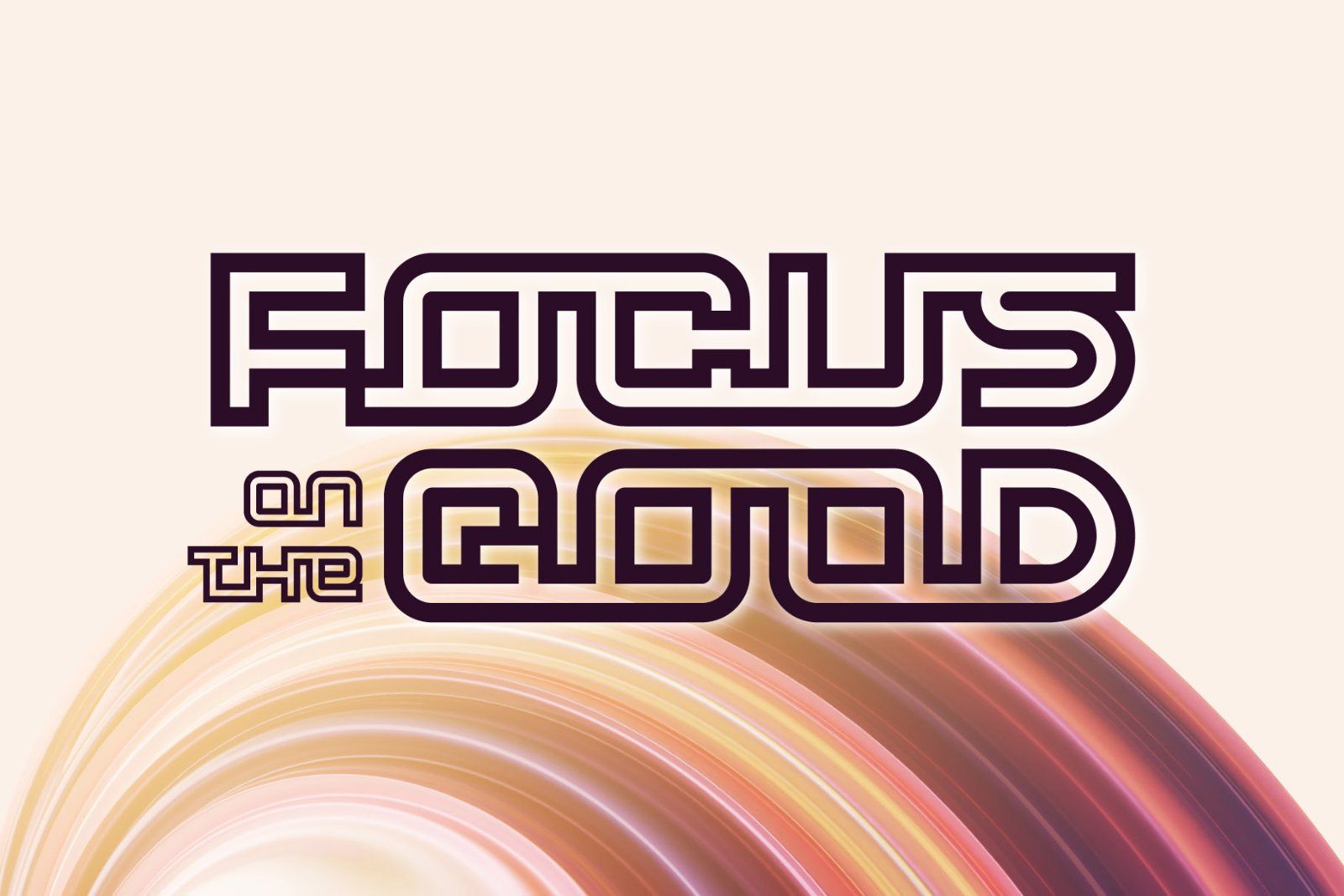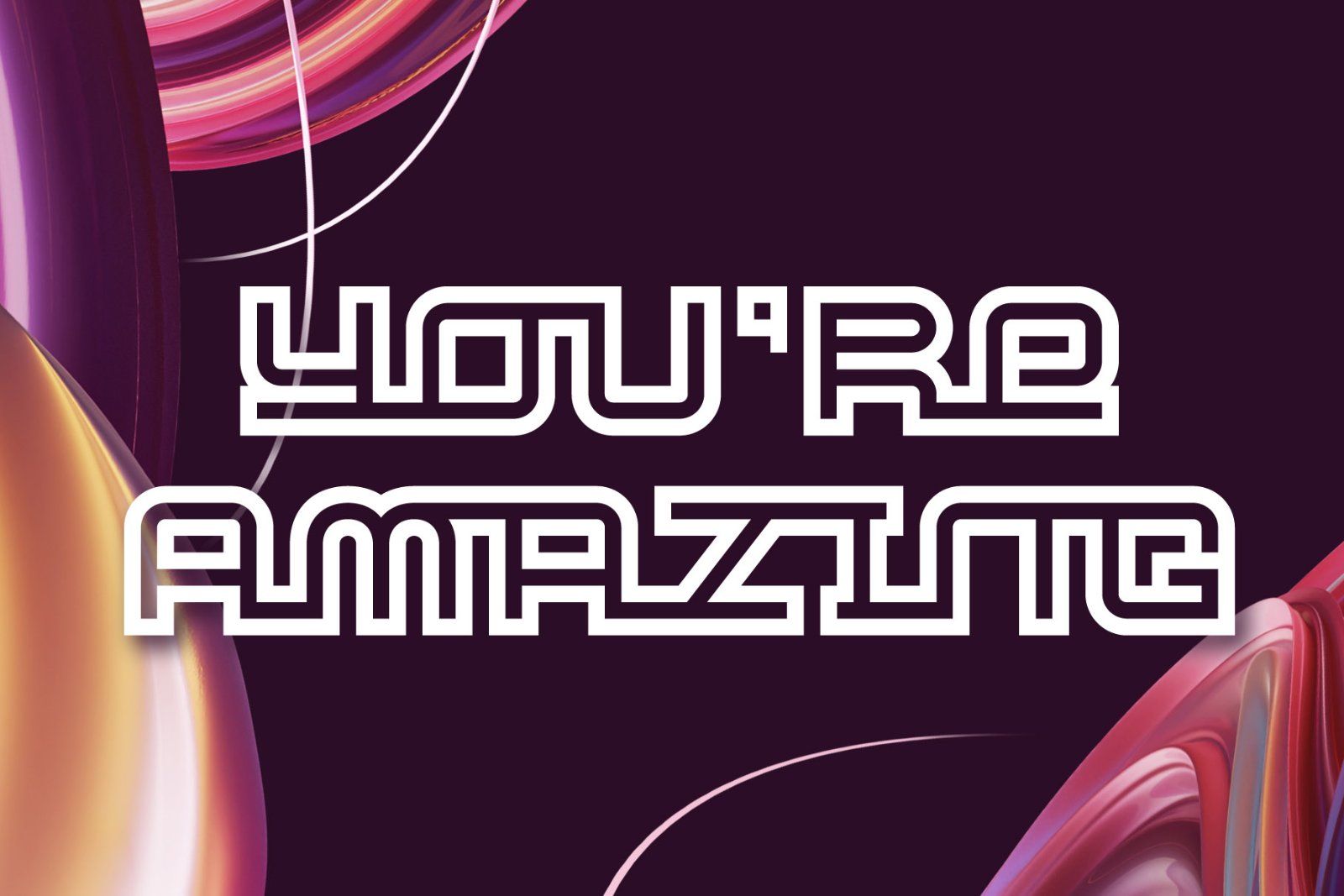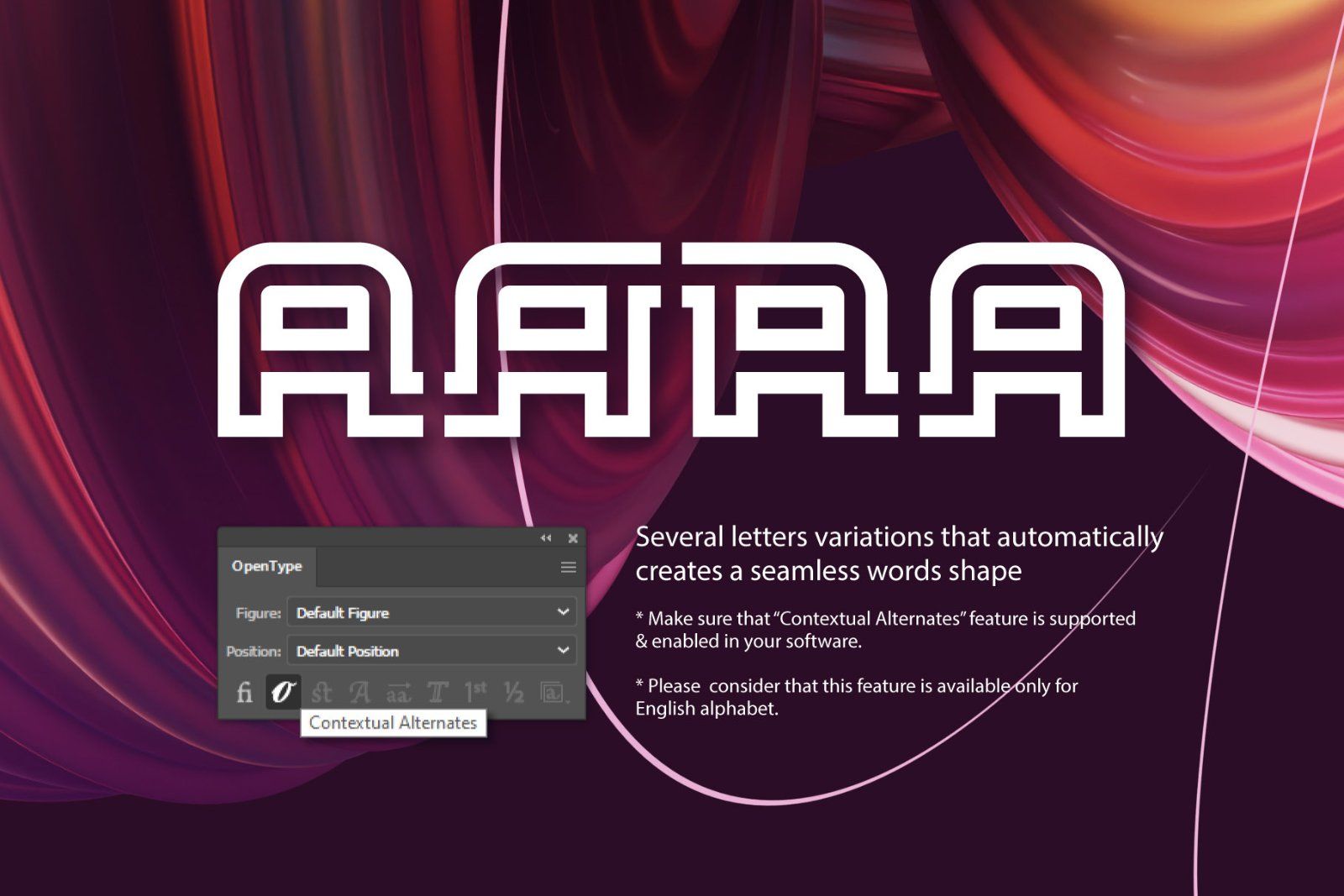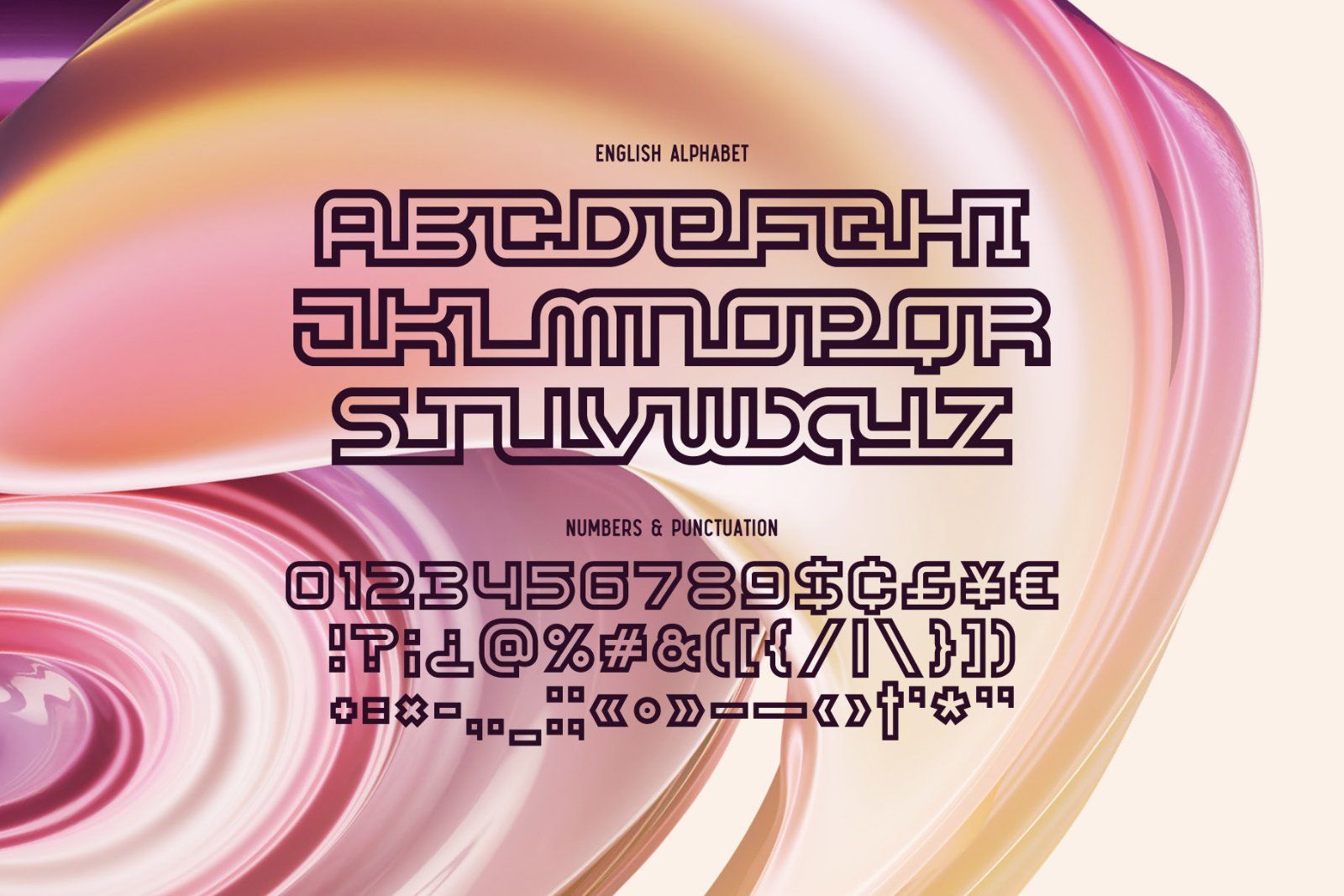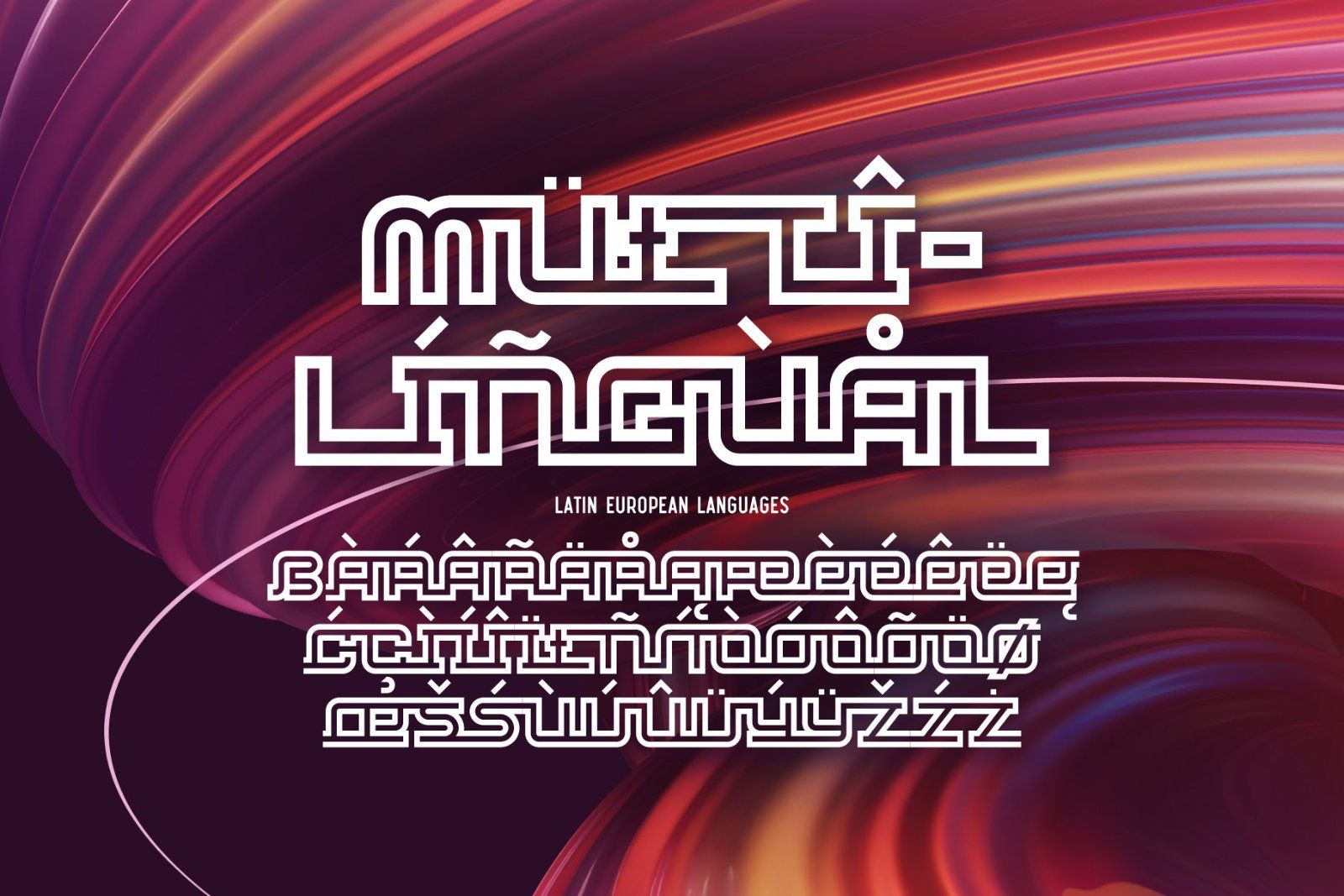
Hello! Introducing a trendy geometric typeface - Nerd Maze. It's an original modern and simultaneously simple font. Several letters variations, using OpenType feature (contextual alternates) automatically creates a seamless words shape.